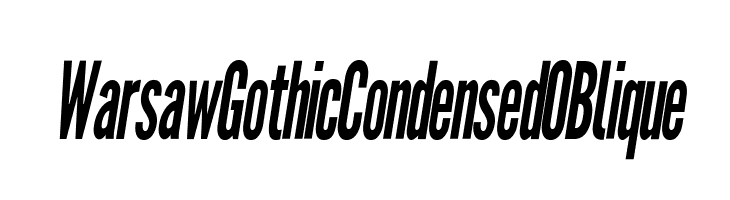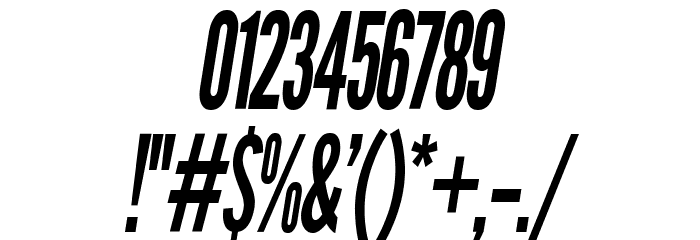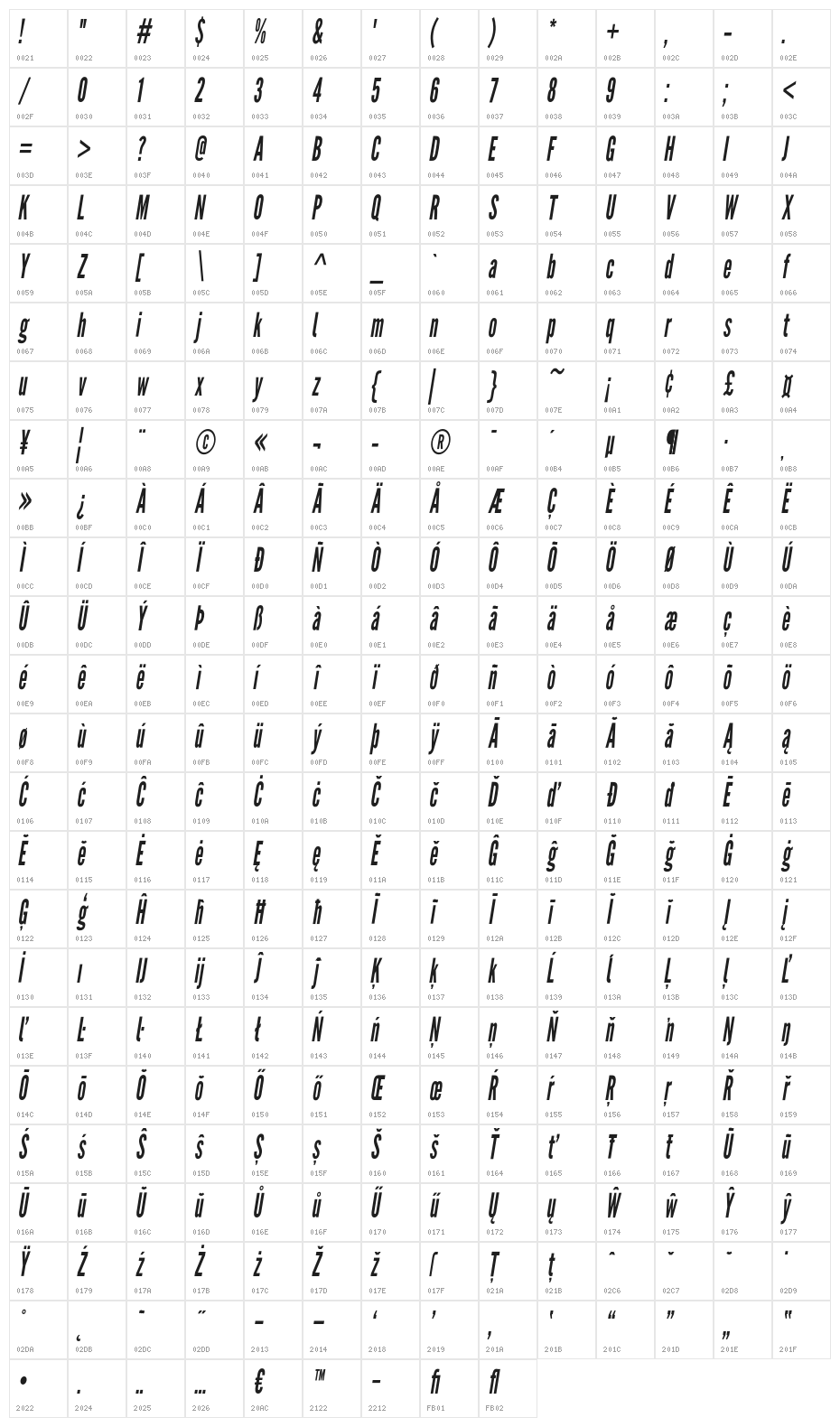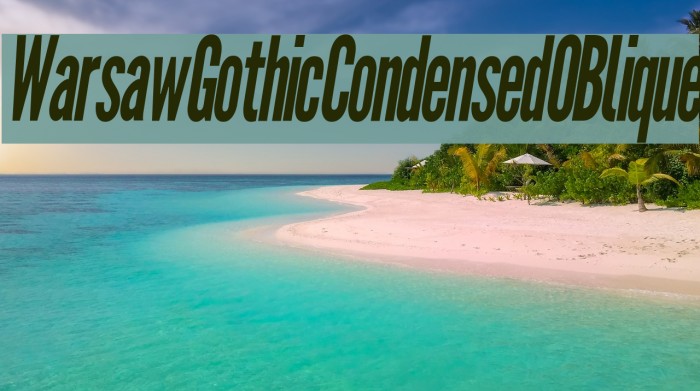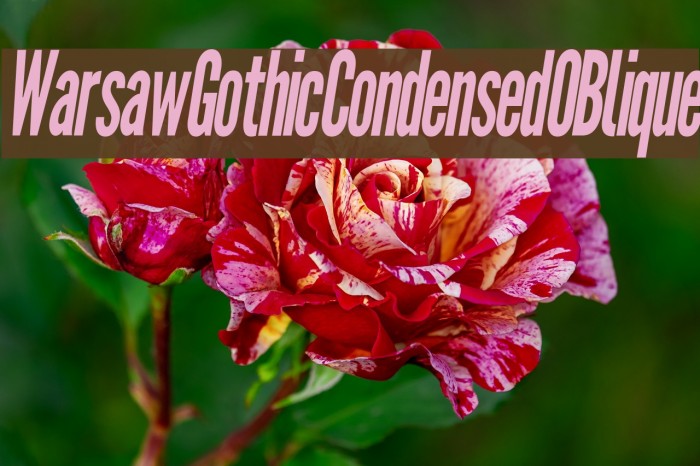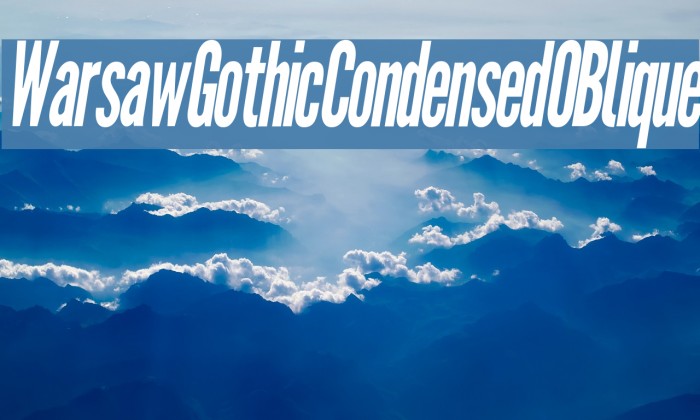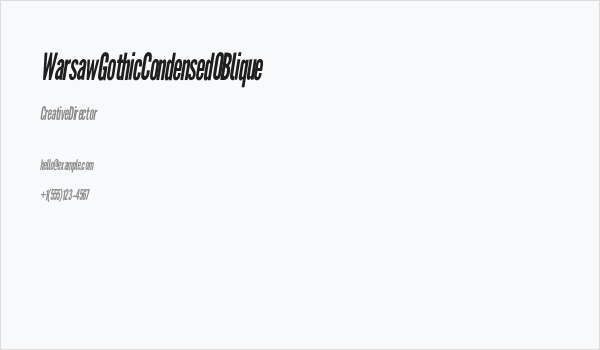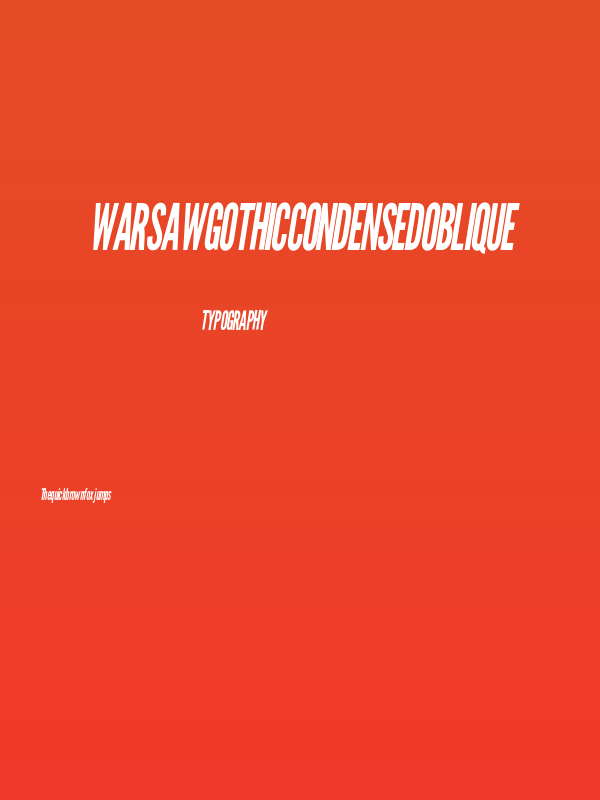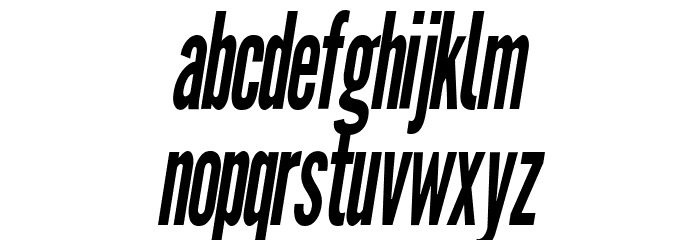
Warsaw Gothic Condensed OBlique Font
Warsaw Gothic Condensed OBlique Description
This font features a bold, condensed style with a distinct oblique slant, giving it a dynamic and energetic appearance. The uppercase and lowercase letters are designed with a uniform stroke width, contributing to a clean and modern look. The numerals and special characters maintain the same condensed and slanted characteristics, ensuring consistency across all elements. The overall design is sleek and impactful, making it suitable for attention-grabbing headlines and titles. Its condensed form allows for efficient use of space, while the oblique angle adds a sense of motion and urgency.
| Proposed Projects | Ideal for posters, advertisements, magazine covers, and branding materials that require a strong visual impact. |